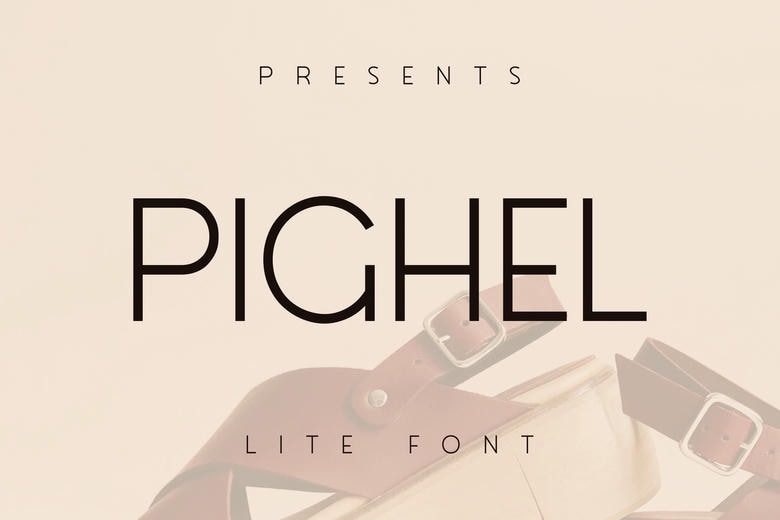
Pighel Font
Pighel is a slim and contemporary sans-serif font that stylishly harmonizes with the minimalist charm of sandal brands and furniture designs. Pighel’s polished, professional aesthetic carries a subtle yet palpable sense of luxury and simplicity, turning any branding into an instant masterpiece of sophistication and style. This font is the very embodiment of modern, high-class elegance, impeccably suited for chic and suave branding needs.
Pighel Sans Serif Font